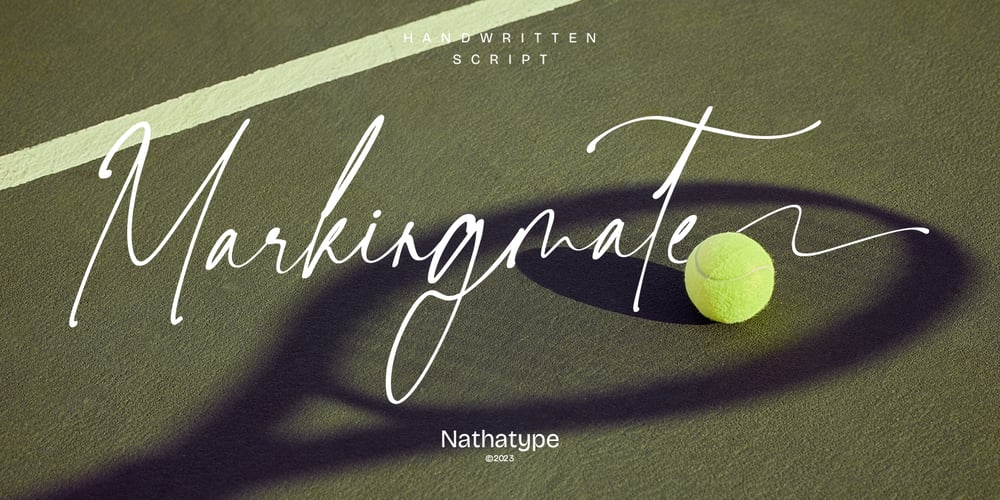
Markingmate Font Family was designed by Donis Miftahudin and published by Nathatype. Markingmate contains 1 styles and family package options. Unveiling the exquisite charm of Markingmate, a script font meticulously crafted to emulate the fluidity of continuous handwriting while retaining a subtle contrast that adds depth and character to each letterform. The proportions of each letter are thoughtfully varied, resulting in an authentic handwritten quality. For the best legibility use this font in the bigger text sizes. This font fits in logos, posters, flyers, invitations, name cards, branding materials, and many more.